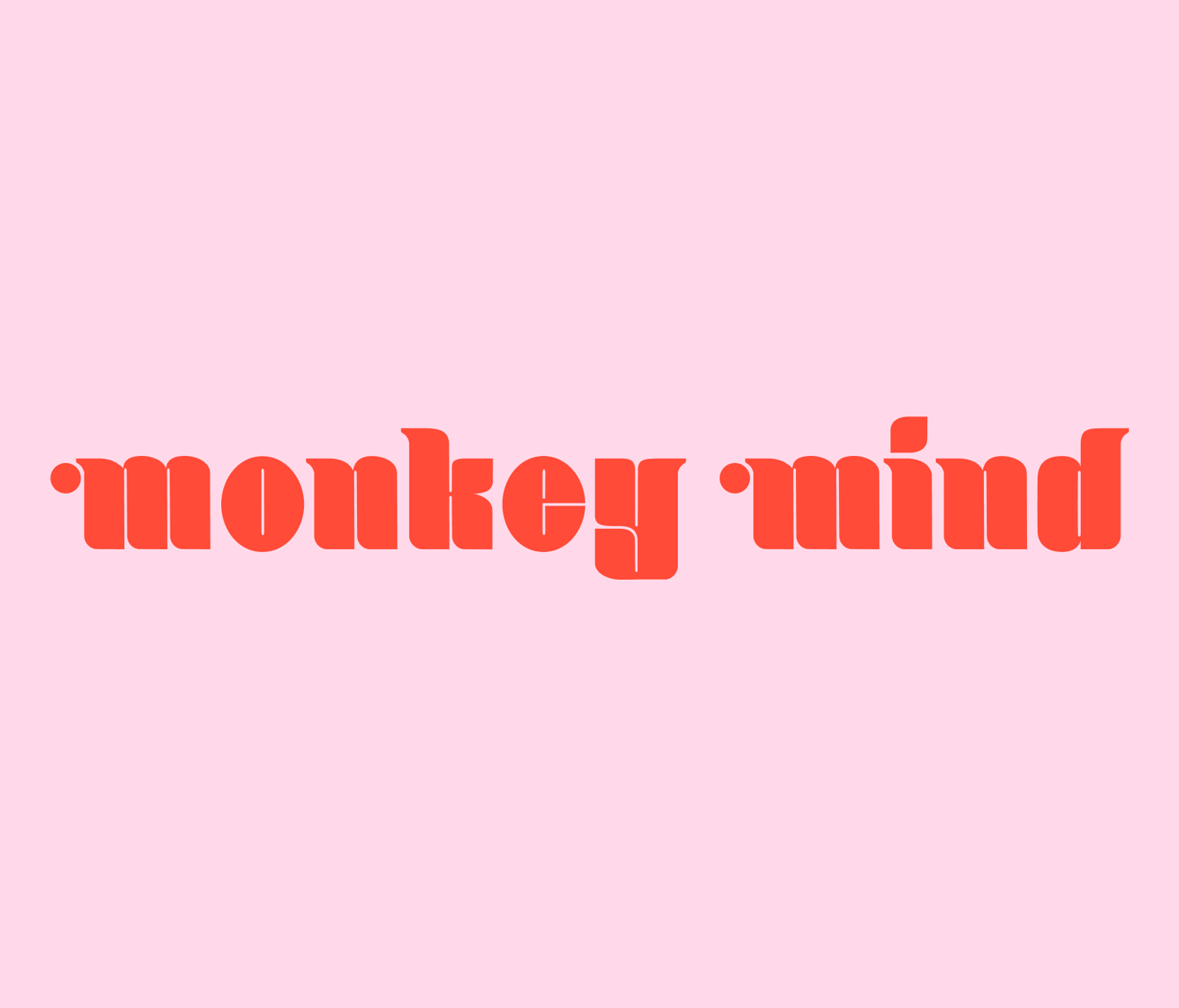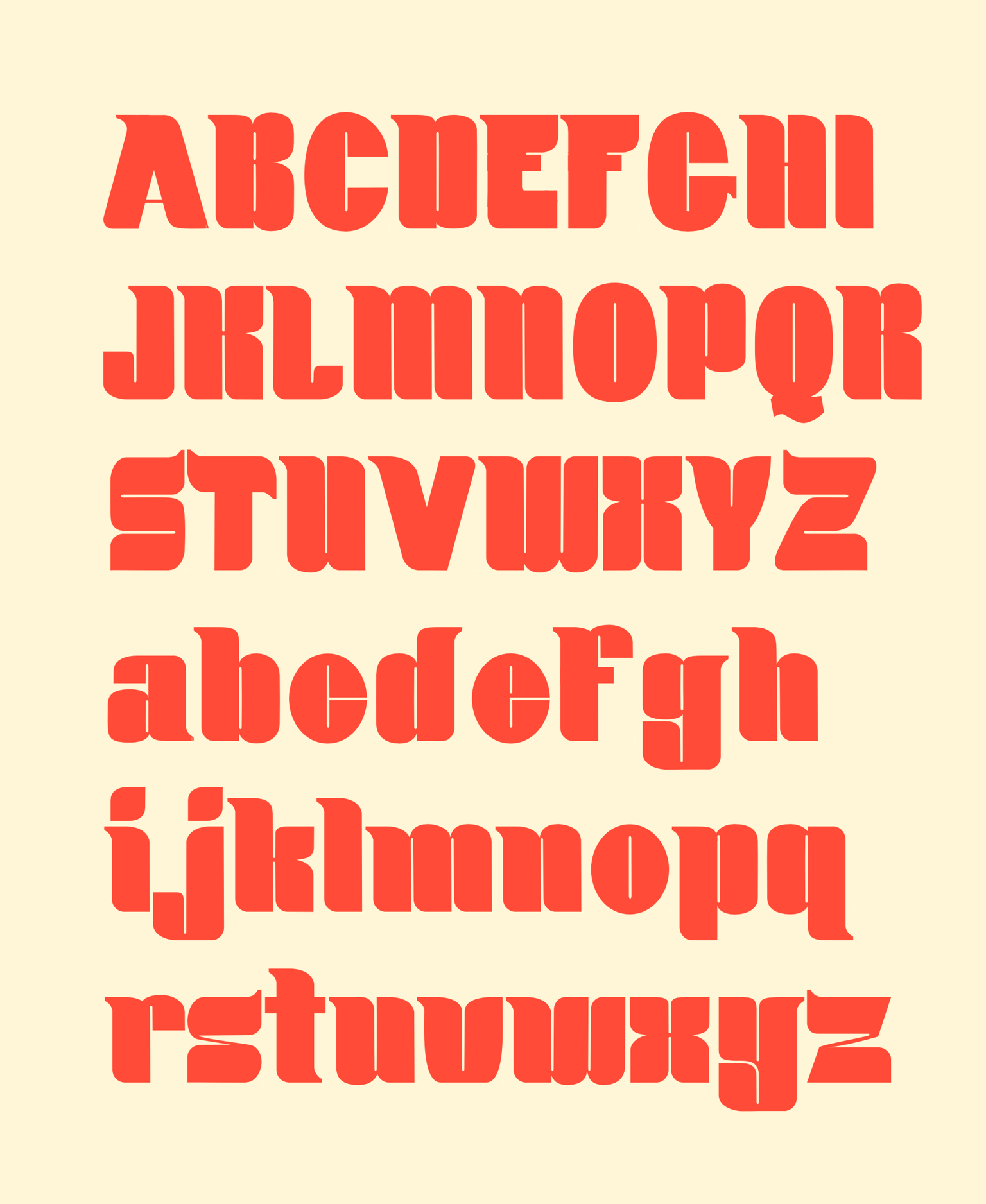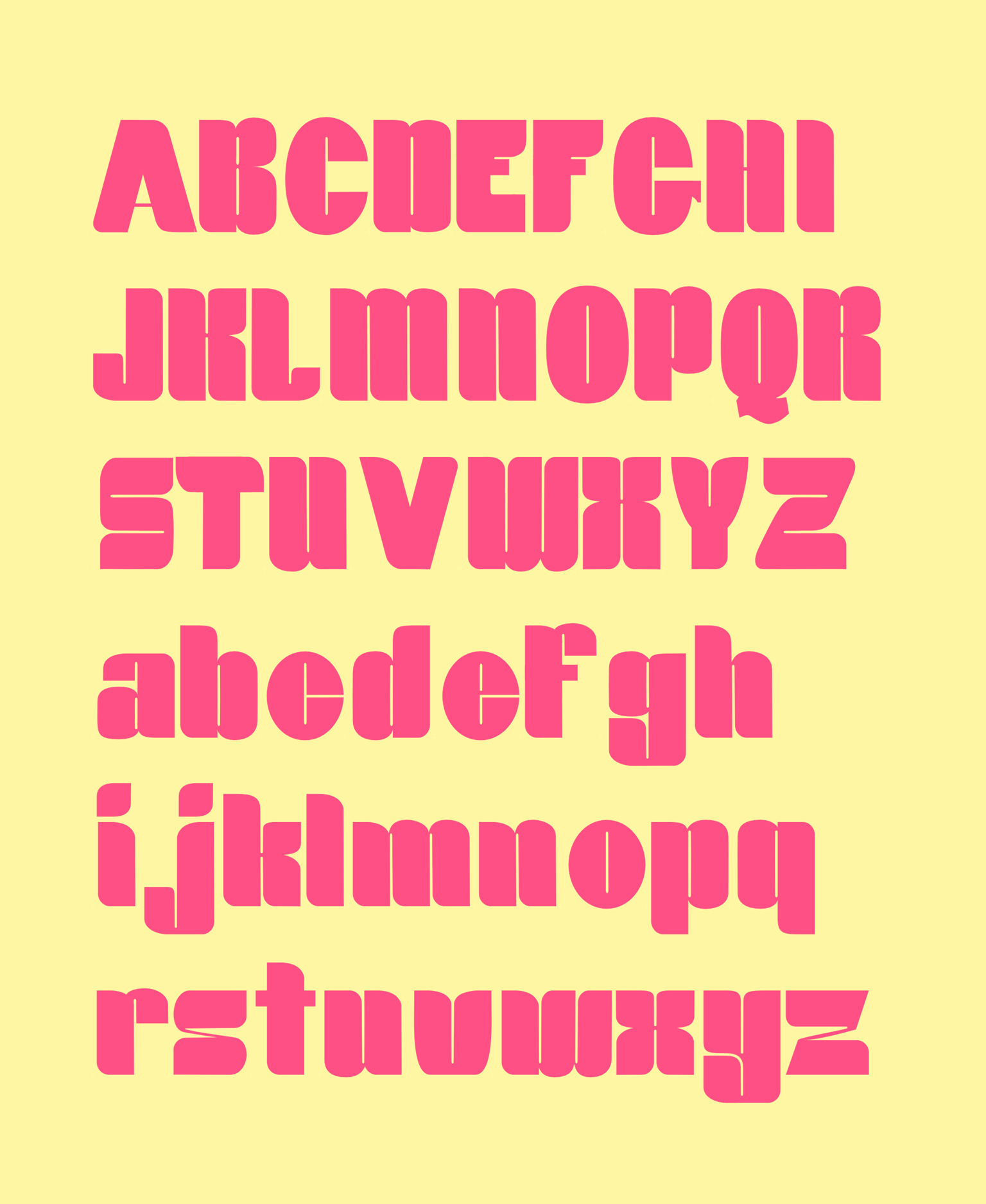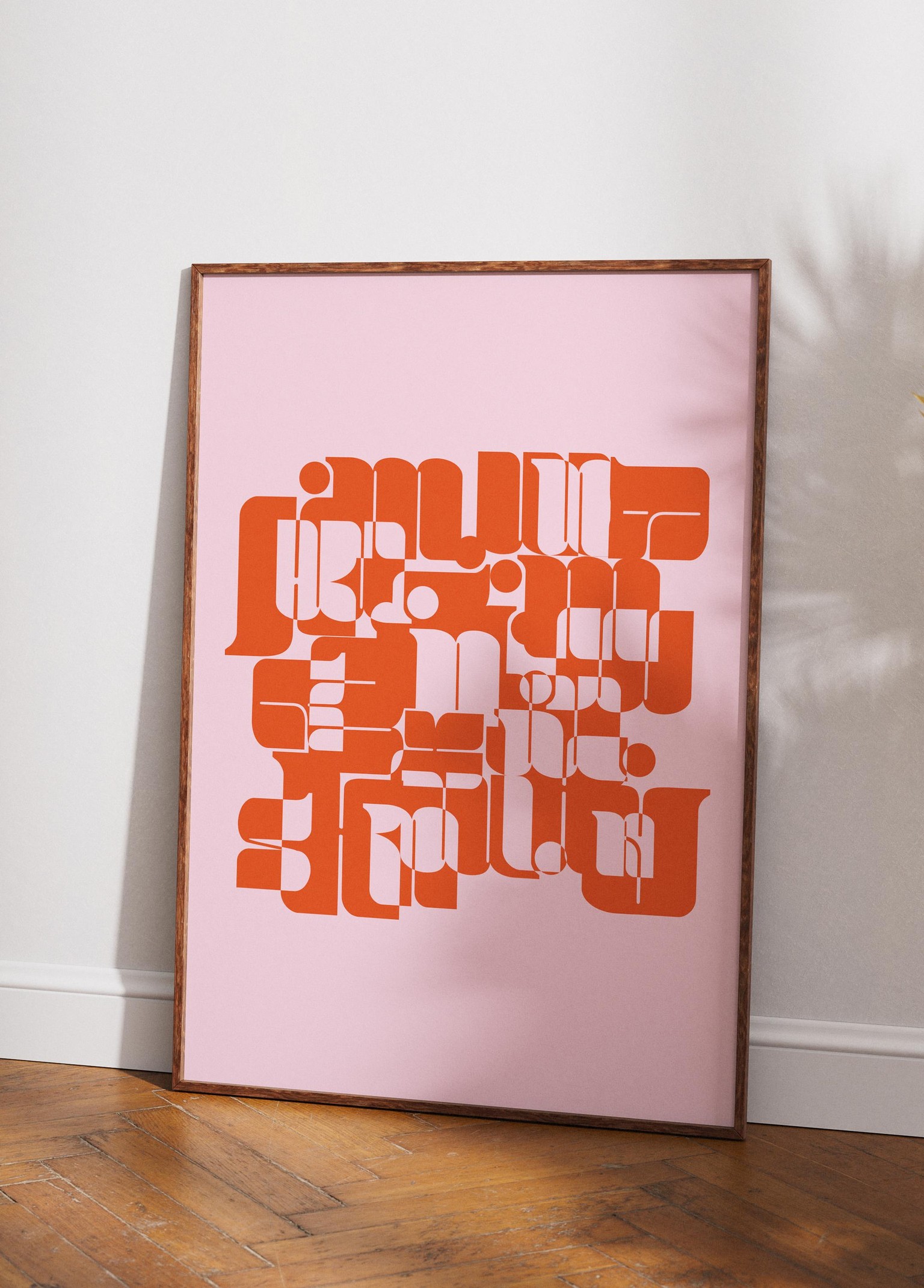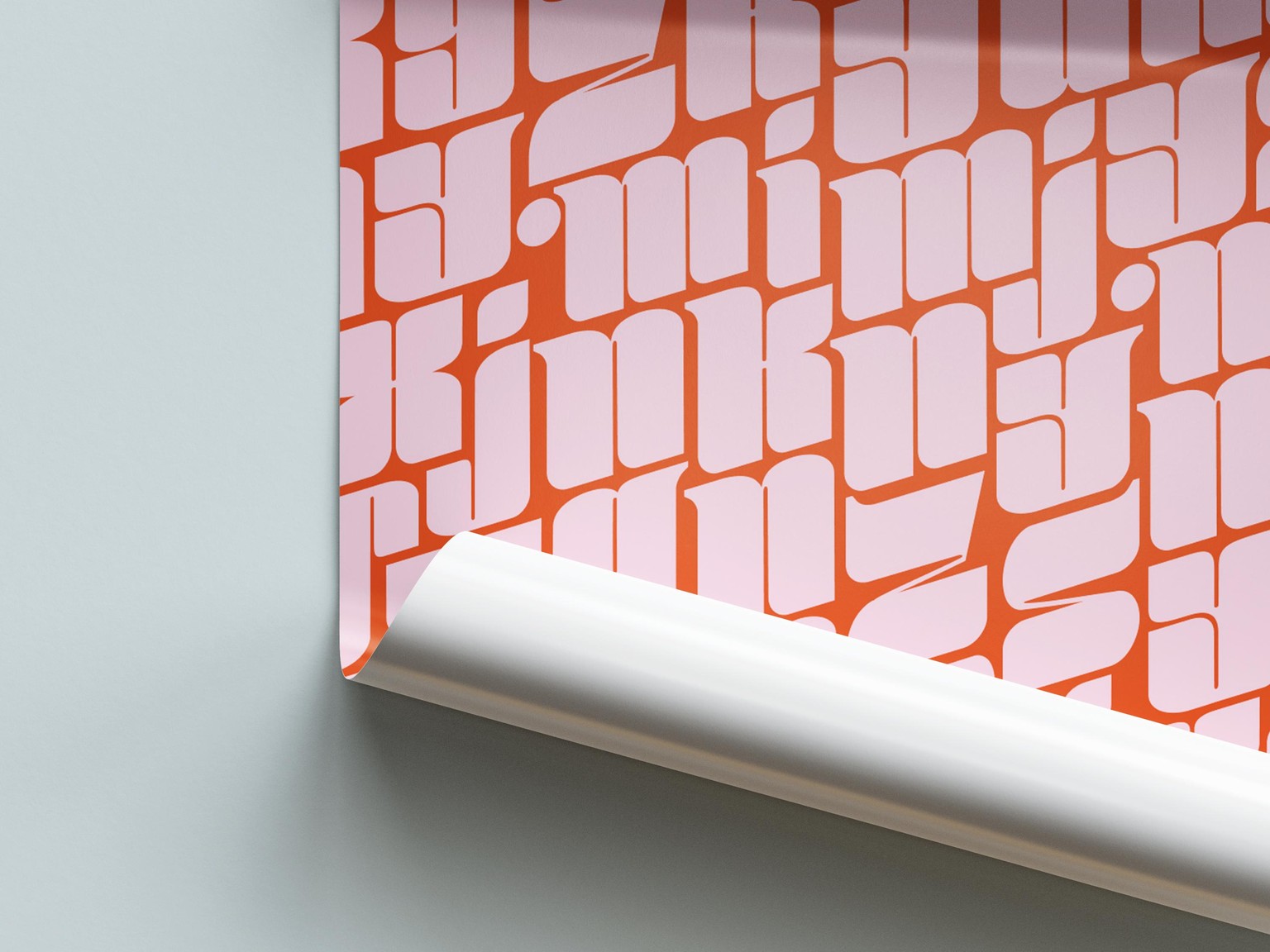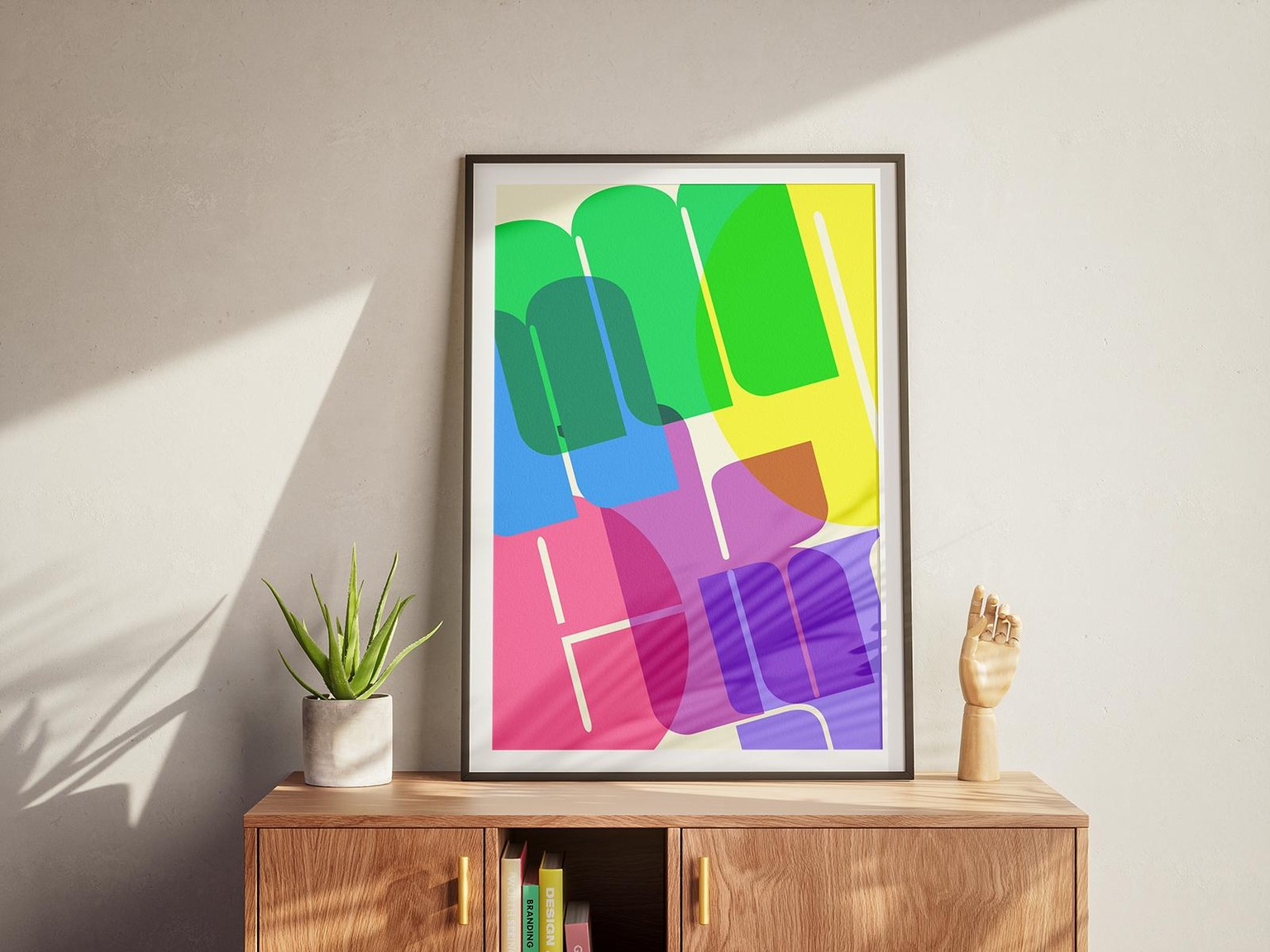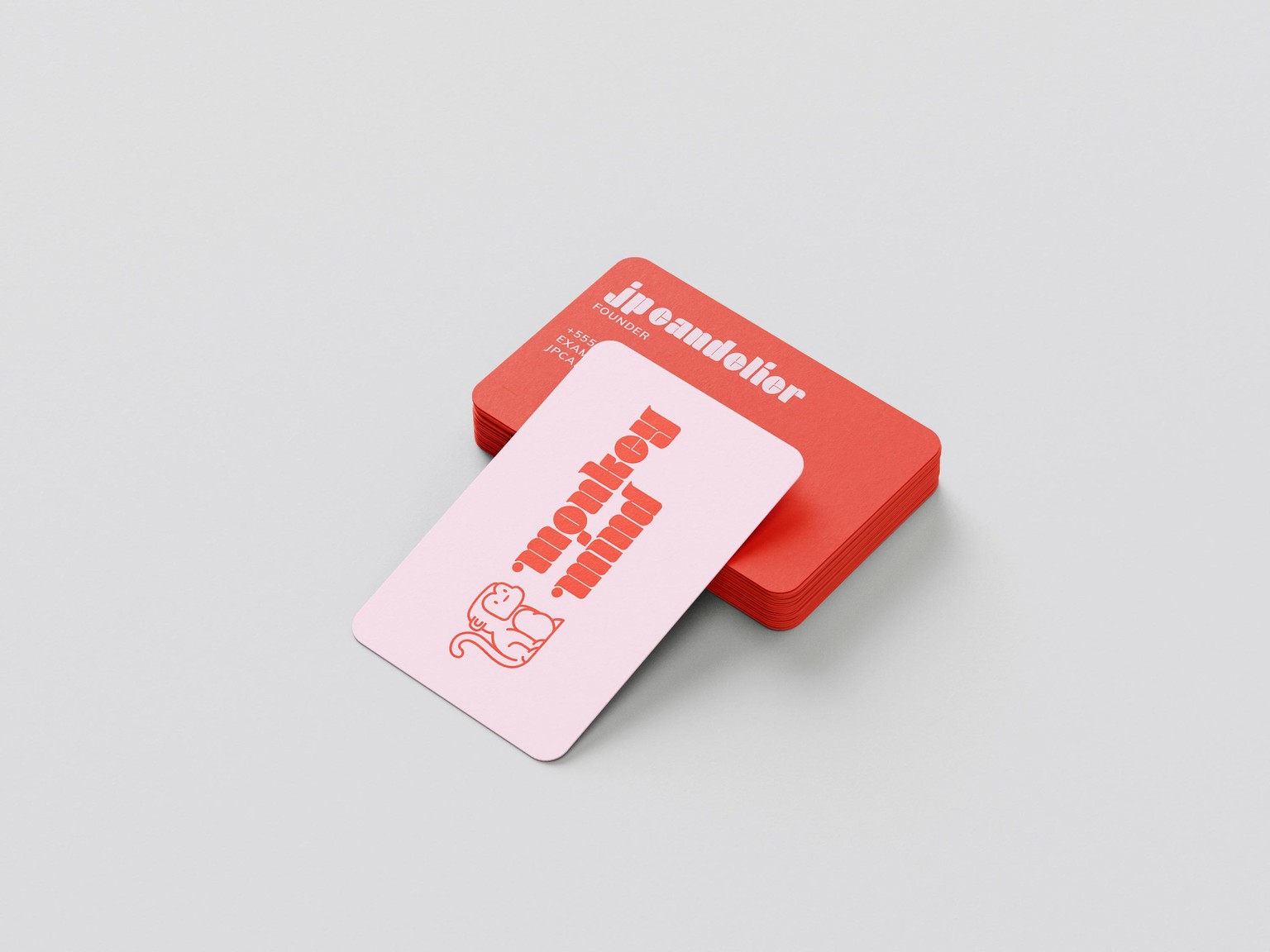
Monkey Mind Typeface
It all started when I was designing a logo for my newly founded business, Monkey Mind. I sketched a lowercase "m" that I liked, but when I tried pairing it with other fonts, nothing felt right. So, I decided to create just the letters needed to spell Monkey Mind, which led me to install Glyphs Mini. However, I felt lost even after watching random YouTube tutorials. After taking this course, I was inspired to complete not just the lowercase characters but also the capitals. I even created a version without the brackets for more general use.
I designed a special "m" for the logo, but the standard "m" remains the default character. Since Glyphs Mini lacks certain OpenType features, I had to map the special "m" (with the circle) to an unused character.